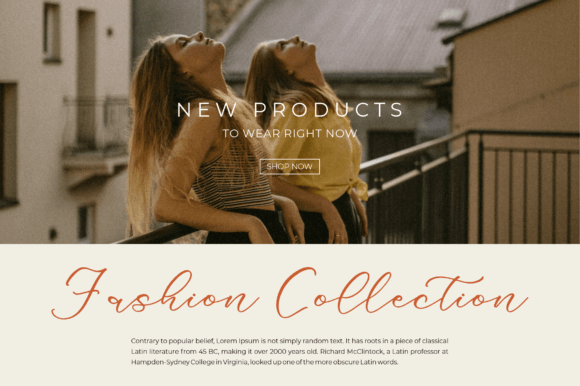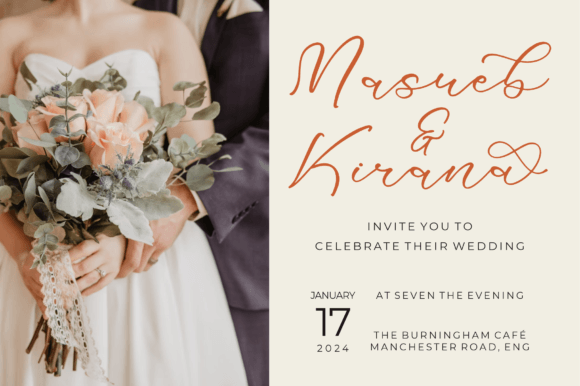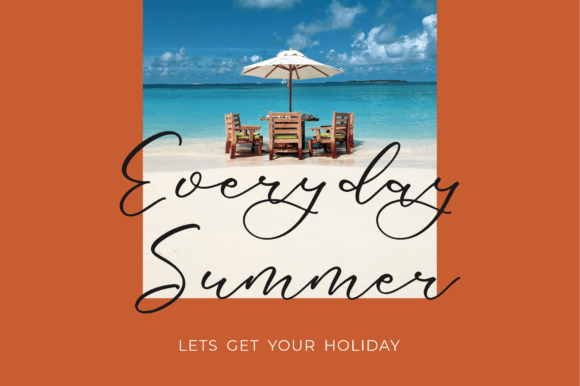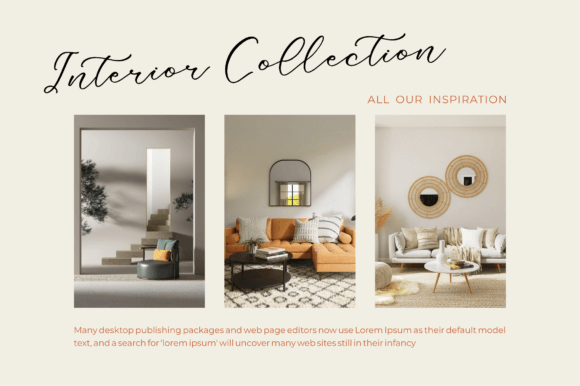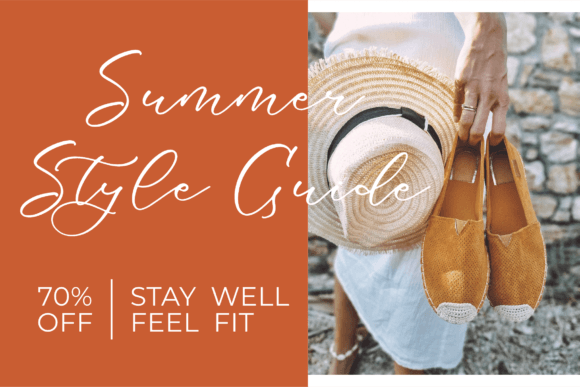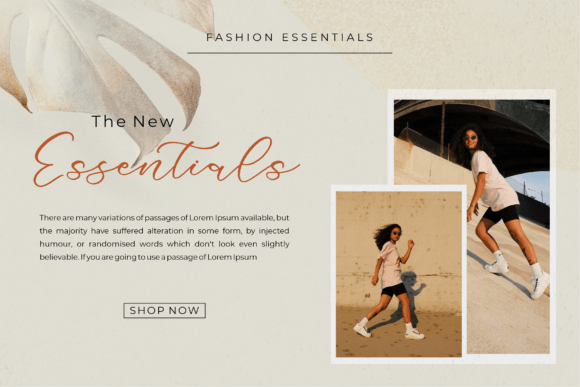
Introduction to Kerhatine Witckity Font
Proudly present Kerhatine Witckity – Beauty Calligraphy , created by Storytype, A luxury script that has own unique style & modern look.
This typeface is perfect for an elegant & luxury logo, book or movie title design, fashion brand, magazine, clothes, lettering, quotes, and so much more .
Key Features of Kerhatine Witckity Font
Why Choose Kerhatine Witckity Font?
Kerhatine Witckity Font offers exceptional quality and versatility, making it a valuable addition to your design toolkit. Whether you’re creating for personal projects or commercial use, Kerhatine Witckity Font delivers professional results.